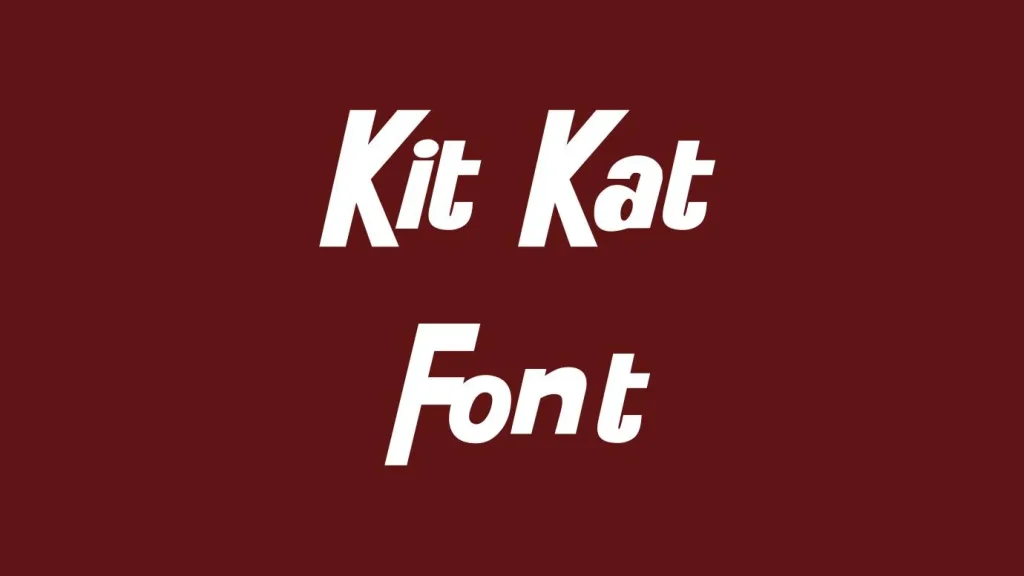
A stunning typeface from the font family is Kit Kat Font. Designed by the famous Eric Gill, it made its debut in 1928, though the hard work started in 1926. The design firm put in a massive effort to bring this typeface to life. This font was crafted specifically for the Kit Kat chocolate company’s slogan or logo.
It is part of a Sans-serif typeface with more than 200 characters, including uppercase and lowercase letters. This typeface was initially released in a few styles, but it is now accessible in a wide range of styles. This typeface is very similar to the fira sans font.
Since it was first released, it has experienced tremendous success thanks to its attractive appearance. It is a very well-known typeface in the market right now. This typeface gives your text graceful glyphs and a distinctive appearance.
It is ideal for a variety of social media platforms, including posters, banners, video games, social media apps, and online retailers. Although there are many substitute fonts available on the market, avenir font is the most similar to this typeface in terms of qualities and types.
You can use this font to give headlines on your projects and it works best for titles on any type of content. This typeface can be used to create your shop’s name, product titles, articles, invoices, magazine and newspaper quotes, and invoices.
Is distinguished by enhanced readability and a variety of lovely designs with excellent lettering. This typeface is adaptable and can be used in many different design projects. This typeface’s alphabet structure is visible here.
This typeface was created using the Gil Sans font, which is similar to numerous other typefaces like United Sans, Core Sans, and Engravers Gothic.
App development and game development are the best uses for it. It can also be used to design cards, flyers, product packaging, and other things. Any project, whether for pay or not, can use it. This lovely typeface can be used in MS Word, MS Excel, and other programs.